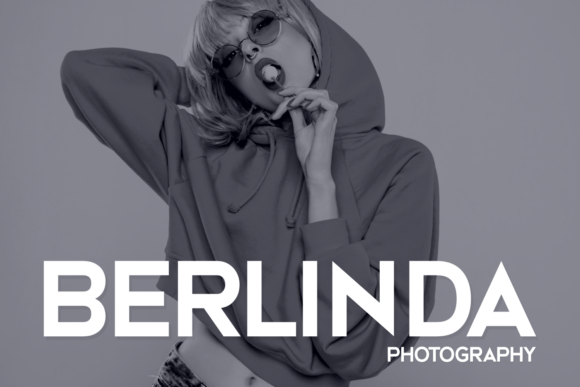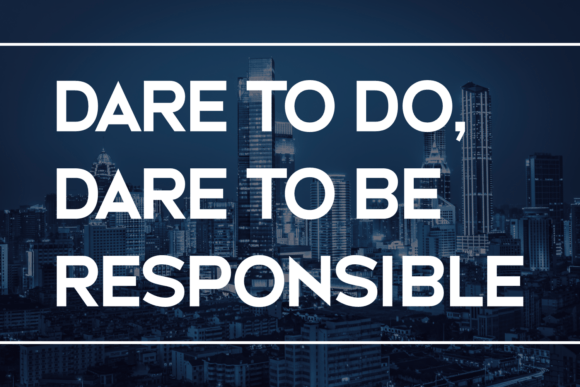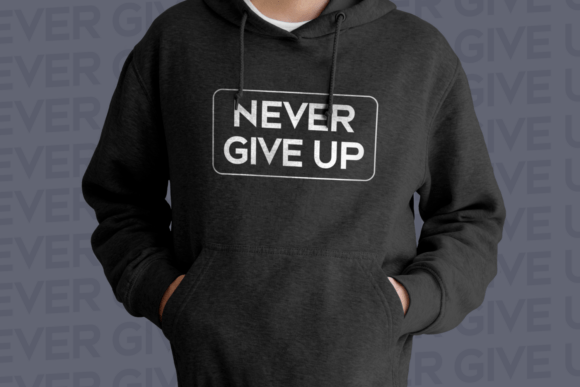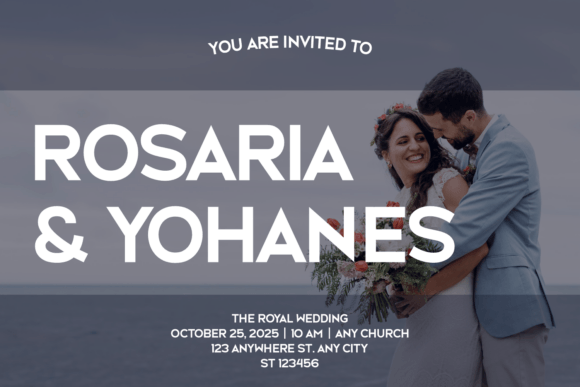
Introducing Exclave Font: The Ultimate Modern Sans Serif for Designers
In the world of typography, fonts play a crucial role in communicating a message effectively. A well-designed font can elevate a design project, making it more engaging, readable, and aesthetically pleasing. If you’re a designer or crafter looking for a clean, modern, and versatile font, look no further than Exclave Font. In this article, we’ll explore the features, benefits, and uses of Exclave, and why it’s becoming a popular choice among designers.
What is Exclave Font?
Exclave is a clean and modern sans serif font that boasts simple and easy-to-read letters. Its minimalist design makes it perfect for both print and digital designs, allowing your message to shine through without any distractions. The font’s friendly and approachable look is achieved through its balanced shapes, which give a sense of clarity and simplicity. Whether you’re working on a branding project, website, or marketing materials, Exclave is an excellent choice.
Key Features of Exclave Font
- Clean and Modern Design: Exclave’s sans serif design ensures that your text looks crisp and contemporary, making it perfect for modern designs.
- Easy to Read: The font’s simple letters and balanced shapes make it easy to read, even at small sizes.
- Versatile: Exclave is suitable for a wide range of design projects, from headlines to body text.
- Fresh and Contemporary Touch: Exclave adds a modern twist to any project, making it perfect for designers looking to create something new and exciting.
Benefits of Using Exclave Font
So, why should you choose Exclave Font for your design projects? Here are just a few benefits:
- Improved Readability: Exclave’s clean design and balanced shapes ensure that your text is easy to read, even for extended periods.
- Enhanced Aesthetics: The font’s modern design adds a touch of sophistication to any project, making it perfect for designers looking to create visually appealing designs.
- Time-Saving: Exclave’s versatility means you can use it for multiple design projects, saving you time and effort in the long run.
- Cross-Platform Compatibility: Exclave works seamlessly across different platforms and devices, ensuring your design looks great everywhere.
Uses of Exclave Font
Exclave Font is an incredibly versatile font that can be used for a wide range of design projects, including:
- Branding and Logo Design: Exclave’s modern design makes it perfect for creating logos and brand identities.
- Web Design: The font’s clean design and readability make it ideal for website design, ensuring a great user experience.
- Print Design: Exclave works beautifully in print, making it suitable for brochures, flyers, posters, and more.
- Marketing Materials: Use Exclave for marketing materials like business cards, letterheads, and envelopes to create a cohesive brand image.
In conclusion, Exclave Font is an excellent choice for designers and crafters looking for a clean, modern, and versatile sans serif font. Its easy-to-read letters, balanced shapes, and friendly look make it perfect for a wide range of design projects. Whether you’re working on a branding project, website, or marketing materials, Exclave is sure to add a fresh and contemporary touch. With its numerous benefits, including improved readability, enhanced aesthetics, and cross-platform compatibility, Exclave Font is a valuable addition to any designer’s toolkit.
Get Ready to Elevate Your Designs with Exclave Font